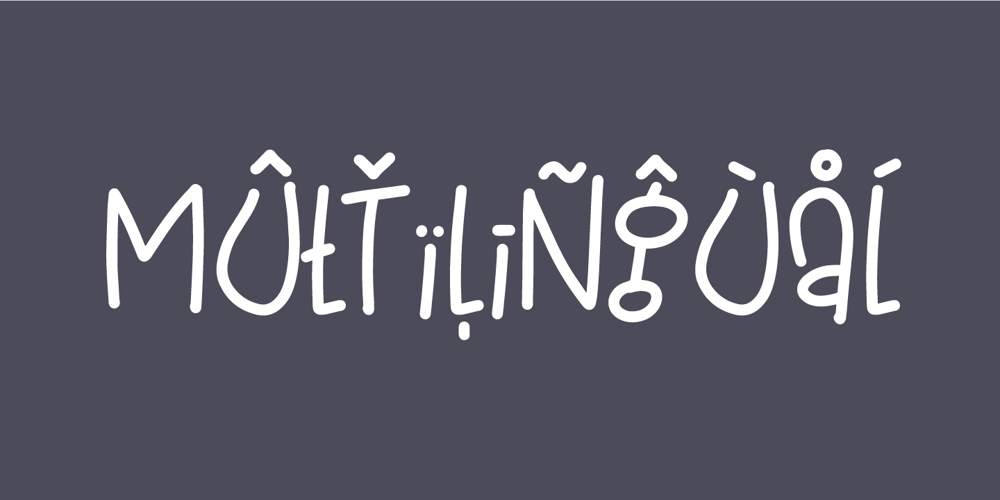
Beat Boy Font Family was designed by Jakob Fischer and published by PizzaDude.dk. Beat Boy contains 1 styles and family package options. Searching for some company? Beat Boy is ready to take action – He wants to put that beat to your designs. I am not sure which category Beat Boy fits in…is it graffiti? Comicbook text? Something for candy labels? Cute posters or hardcore skater flyers? … the purposes of use could be many!